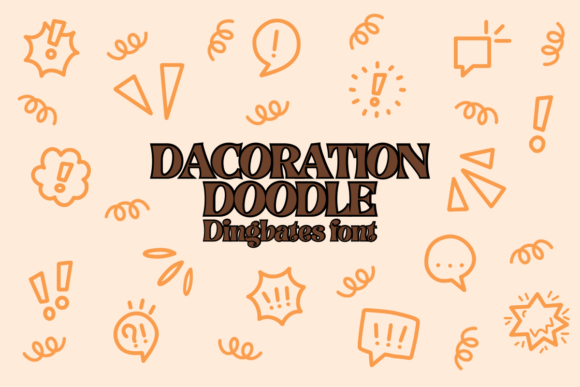
Unlocking Your Creativity with Dacoration Doodle Font
Remember that moment when you stumbled upon the perfect font that elevated your design from good to amazing? For many designers, that moment is what drives them to push the boundaries of creativity. And for those who are still searching, we’re excited to introduce you to the Dacoration Doodle Font – a beautiful dingbats font that’s about to take your designs to the next level.
This charming sketch-style font is designed to bring a personal touch to your creative projects, whether it’s a wedding invitation, a DIY craft, or a logo for your business. With its playful and whimsical feel, the Dacoration Doodle Font is the perfect addition to any design project that requires a touch of elegance and sophistication.
Dacoration Doodle Font Key Features
- Unique Characteristics: The Dacoration Doodle Font features a playful, hand-drawn style with intricate doodles and ornaments, perfect for adding a whimsical touch to designs.
Dacoration Doodle Font Review
I recently had the chance to work with the Dacoration Doodle Font, and I have to say, it’s a unique and playful addition to any design project. ✨ One of the things that stands out to me is its versatility – it’s perfect for anything from kids’ party invitations to creative logos.
The font’s quirky, handwritten style is sure to add a touch of personality to any design. ✨ It’s also incredibly easy to use, with a wide range of characters and symbols available. I particularly love the way it interacts with other fonts, adding a fun and playful touch to even the most straightforward designs.
Limits and Considerations
While the Dacoration Doodle Font is a lot of fun to work with, there are a few limitations to be aware of. ⚠️ For one, it’s not ideal for large blocks of text – the font’s informal style can make it difficult to read when used extensively. Additionally, some characters may not display properly in certain contexts.
- May not be suitable for large blocks of text
- Some characters may not display properly in certain contexts
Overall, I think the Dacoration Doodle Font is a great addition to any designer’s toolkit. It’s perfect for adding a touch of whimsy to a design, and its ease of use makes it a great choice for designers of all skill levels. Just be sure to use it judiciously, and you’ll be sure to get the most out of this fun and playful font.
Tips for Getting the Most Out of Dacoration Doodle Font
To get the most out of Dacoration Doodle Font, try using it in combination with other design elements, such as shapes and graphics. You can also experiment with different font sizes and styles to create a unique look.
Dacoration Doodle Font is ideal for use in creative projects, such as invitations, party decorations, and social media graphics. It’s also great for use in educational materials, such as lesson plans and worksheets.